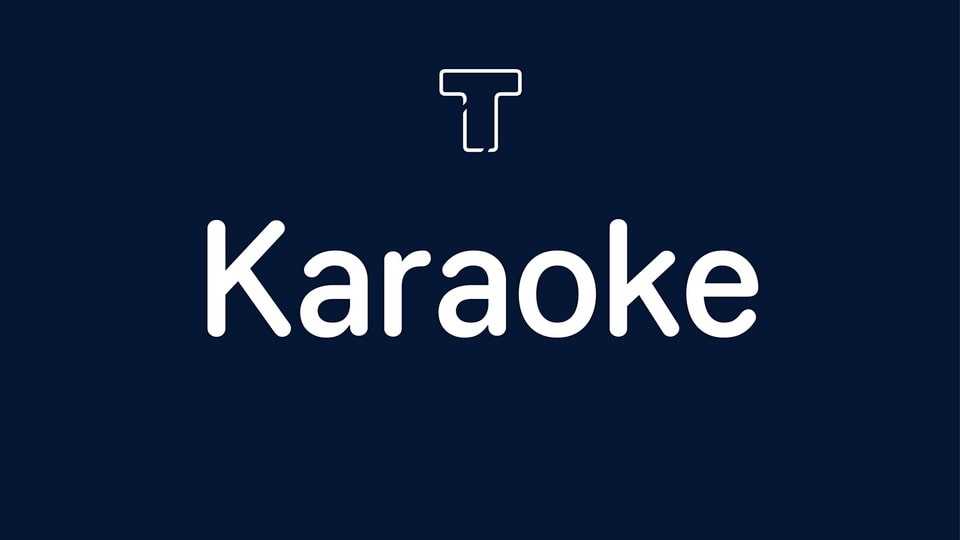
LT Karaoke Font › Fontesk – Download Grátis
Download LT Karaoke font, a rounded sans-serif typeface that can be used for on-screen karaoke videos. With its rounded and friendly design, it can also be used for neon signs, neon and robust materials, and so on.
Designer: LyonsType